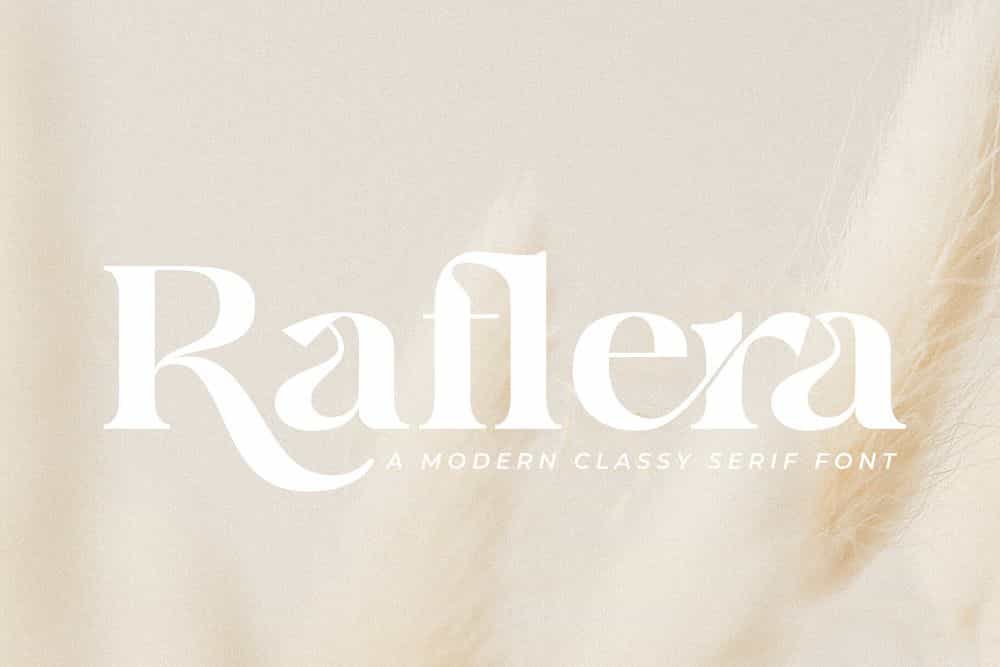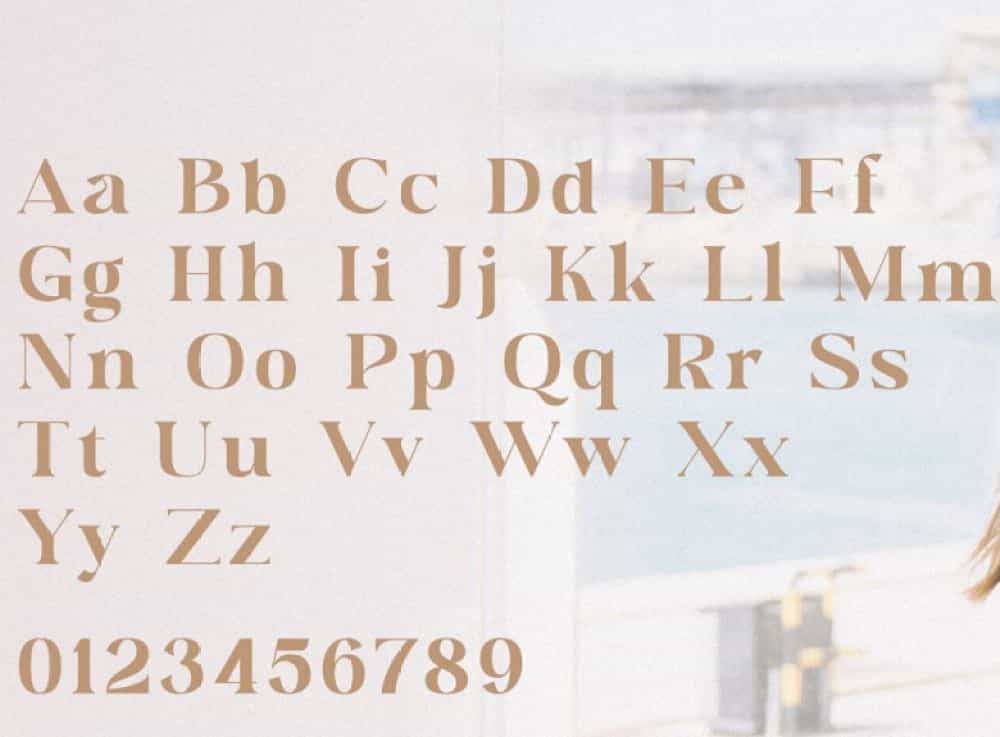
Raflera is a serif font that combines the contemporary look and feel with the classical appeal. The features of its design include high-contrast and simple geometric shapes that make it appropriate for use in various designing projects ranging from invitations to logos.